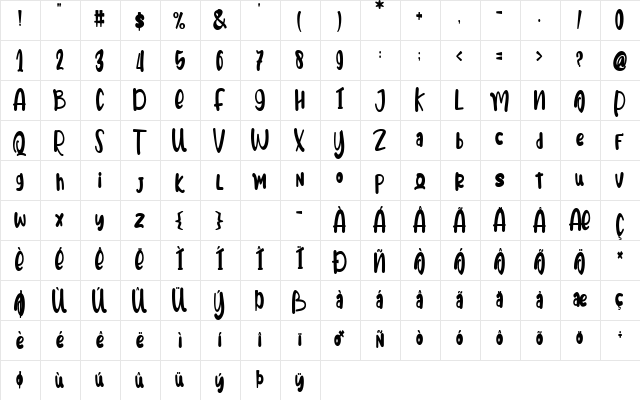
Meoowly Regular
| Designer | Stefani Letter |
Design Context for Meoowly Typeface
Meoowly is a composed and adaptable typeface that performs quietly and consistently across a wide range of design contexts.